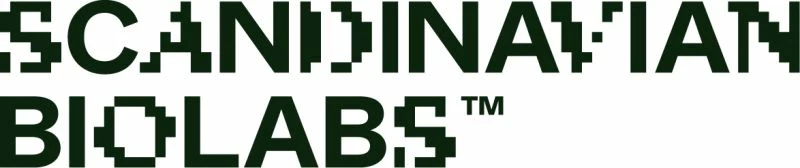
What font is this?
I have the impression that there are 2 different fonts and one is pixelated, but I can’t identify either of them.
There isn't much to go on in that sample image. Arial is a possibility, but the "C" looks like it might be closer to Akzidenz Grotesk. If you're working on a project for Scandinavian Biolabs I'd ask them for some proper vector-based artwork. They should be providing that anyway; it's a lot better for official corporate artwork to be used rather than re-creations of a logo.
Arial?